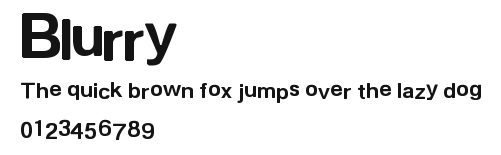
• Font Name: Blurry
• Full Font Name: Blurry
• Designer: Dan P. Lyons
About Blurry.ttf
Blurry.ttf is a modern, elegant sans-serif font designed for ultimate readability and visual harmony. Perfect for branding, headlines, web design, and print materials.